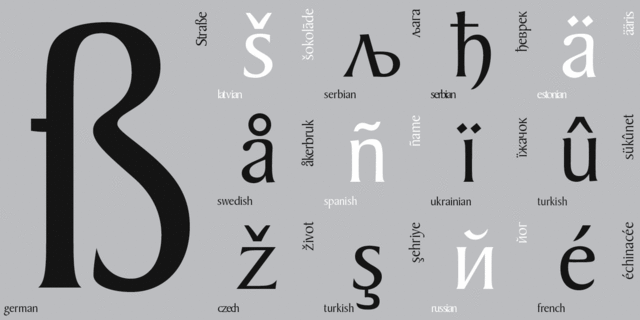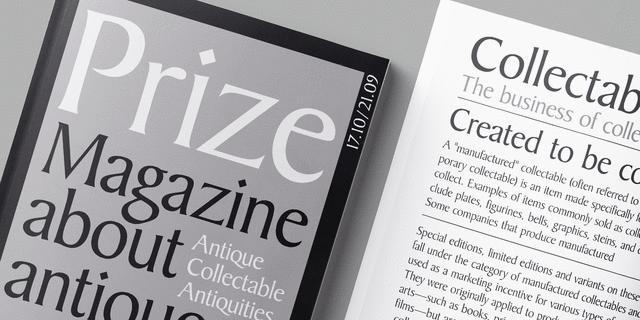
About Baker SignetBitsream version of Baker Signet typeface designed by a well-known calligrapher Arthur Baker for Visual Graphic Corporation (VGC) in 1965. Characterised by classical lines with subtle but impressive calligraphic touches and flare stroke terminals. Serves for advertising and display typography as well as for headlines and small texts. Cyrillic version was developed by Yevgen Sadko and released by ParaType in 2008.
Features of font family Baker SignetThe hit of the decade:
Hit of 1960s Similar to fonts from logos, games, movies:
Coca-cola, Hankey Bannister, Dermacol, Armstreet
Close to historical original:
Associations for font family Baker SignetTypeface personality and character:
expensive, elite, noble, traditional, high-quality, masterful, cultural, aesthetically beautiful, elegant, luxurious, artistic, famous, precious, unique, original, select, beautiful, comme il faut, rich, sexy, gentlemanly, fantastic, pretentious, ancient, historical, imperial, sacral
art, artist, music, architecture, sculpture, opera, poetry, cosmetics, health, beauty, food, alcohol, cognac, Premium, restaurant, hotel, chocolate, decoration, jeweler, silver, jewelry, laying, luxury, whiskey, fashion, paint, monument, hygiene, purity, tea, clock, comme il faut, coffee, memorial, painting, trophy, reward, boutique, concert, Bible, wine, sunset, philosophy Typeface associated with age: